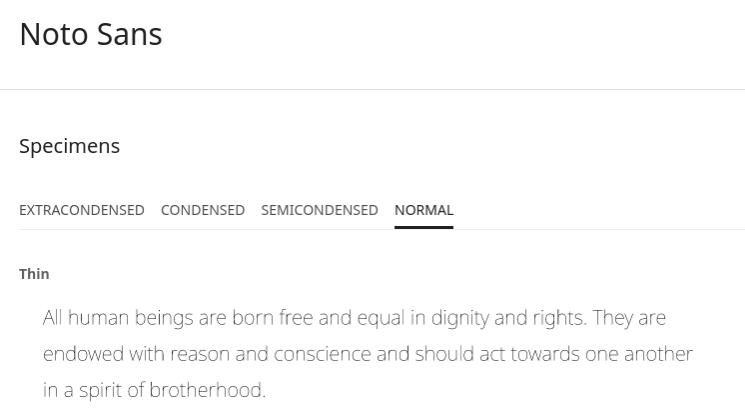
The 11 best multilingual fonts
Create design and branding for a range of international audiences with the best multilingual fonts.
The best multilingual fonts can be used to pieces of design and brand identities that surpass linguistic barriers to communicate with audiences in different countries and regions. As the name suggests, multilingual fonts are designed with characters from more than one alphabet, allowing them to be used for text in communications in different languages.
Multilingual fonts are also useful for web design, allowing sites to be translated into different languages without changing the typeface. If a site's font doesn't cater for a given language, it could display a little box known as a 'tofu' instead of the correct character. This is a bad look that detracts from the legibility and design of a site.
But the best multilingual fonts keep translated text in line with the rest of your design, without needing to spend your time designing character alternatives. Below, we've picked our favourites, choosing a variety of styles for different budgets to help you find one for your project. If these fonts aren't what you're looking for, take a look at our guide If these aren't quite what you're looking for, head over to our other font roundups for more options, including our favourite script fonts, brush fonts or italic fonts. Or if you're on a very tight budget, see our pick of the best free fonts.
The best multilingual fonts
01. Katislen
We'll start our list of the best multilingual fonts with this beautiful script font. It's perfect for when you want to evoke the feel of classy calligraphy but keep things clean and readable. It comes in OTTF and TTF so is useable across a range of publishing and design software, and comes with glyphs, alternates and ligatures galore! Even better, it has multilingual support. Hurrah.
02. Okta Neue
The font's creator says Okta Neue Font "inherits the best traits of Okta – great legibility, simple geometric letter shapes, low contrast across all styles" but, crucially, includes extensive language support, plus enhanced OpenType features. It has 1293 glyphs, with an extended Latin set and extended Cyrillic, Greek (Basic and Polytonic) and Hebrew. Cyrillic also includes localised support for Serbian, Bulgarian and others. It has 22 font styles.
03. Suisse
Suisse is the centrepiece of the Swiss Typefaces library. It’s made up of six collections that include a total of 55 styles. Thanks to its clear-cut design, Suisse is perfect for contemporary projects and lends itself easily to variation. These alternate styles include Suisse Int’l, which supports Latin, Cyrilic and Arabic alphabets.
04. Dominicale
With its blunt serifs and jagged, diagonal stems, there’s something of a medieval air to Dominicale. It’s no surprise then to learn that Dominicale's makers were interested in interpreting the rough and ready setting of early printed books.
The angular structure of this font would be a perfect fit for projects that pastiche the past, such as the best posters or packaging designs. And with support for English, French and German characters, this trilingual edition can be enjoyed by a huge European audience.
05. Grotte
Multilingual fonts don’t have to be expensive affairs. Just take Grotte, a simple sans-serif font with geometric outlines and elegant curves. Available in three weights, this handy little font can be yours for just $8. And with support for Spanish, Portuguese, German, Danish and French languages, plus Cyrillic, you’re really getting value for money.
Thanks to its clear yet easy-on-the-eye design, Grotte would lend itself easily to posters, packaging, commercials, signs and websites. Just what you need for an international campaign on a tight budget.
06. Mirage
Mirage is an elegant font, which has multilingual support. Perfect for projects that require a touch of class, it comes in five weights and includes uppercase and lowercase letters, numbers and punctuation.
It's easy to read in a wide range of contexts so would work for packaging, magazines, fashion, invitations or in situ on a website. It currently has 50 per cent off, so it's a great time to invest.
07. Omnes